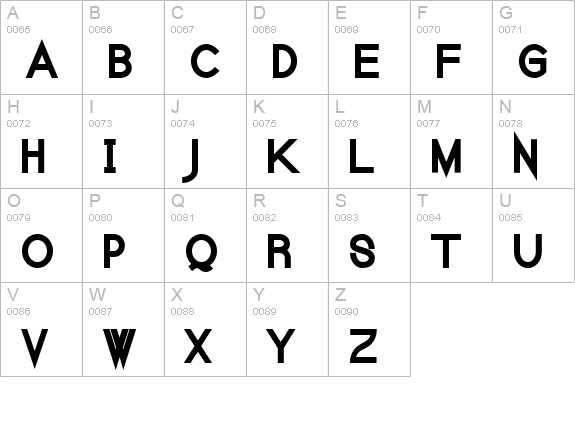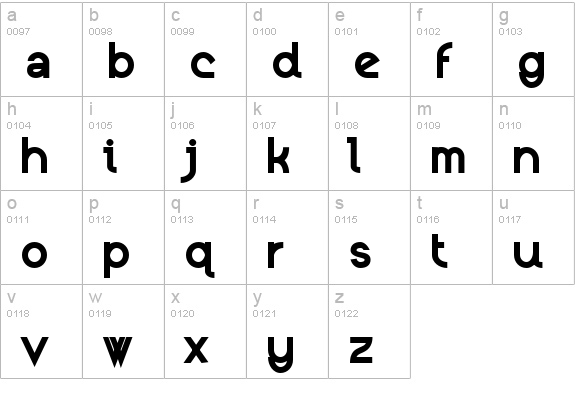
Kerater Black Font Details
Kerater Black is a maximum-weight, dramatic variant in the Kerater typeface family \xE2\x80\x94 well suited to maximum-impact headlines, posters, and packaging.
Introducing Kerater Black, a modern and stylish font that exudes confidence and sophistication. This bold typeface is perfect for making a statement, whether it's in a logo, headline, or any design project that requires a strong visual impact. Kerater Black showcases a unique blend of sharp edges and smooth curves, creating a harmonious balance between strength and elegance. Its thick and sturdy letterforms demand attention, while the subtle details add a touch of refinement. With its versatility, this font can effortlessly adapt to various design styles, from sleek and minimalist to bold and adventurous. One of the most appealing aspects of Kerater Black is that it is free. Yes, you read that right - this exceptional font is freely available to download at FontsMarket.com. This means that you can add this remarkable typeface to your font library without breaking the bank. Whether you're a professional designer or simply a typography enthusiast, having access to high-quality and free fonts like Kerater Black is a true game-changer. So, why wait? Take advantage of this amazing opportunity to elevate your design projects with the power and elegance of Kerater Black. Download it today from FontsMarket.com and unlock a world of creative possibilities. With its striking presence and versatile nature, this font is sure to make a lasting impression and take your designs to new heights.